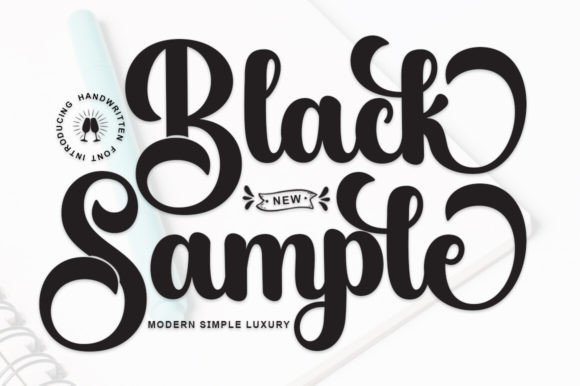
Introducing Black Sample Font: Elevate Your Designs with Elegance and Charm
Are you looking for a font that exudes sophistication and style? Look no further than Black Sample Font, a stunning script font that is sure to elevate your design projects to new heights. With its classic calligraphy-inspired aesthetic, Black Sample Font feels equally charming and elegant, making it the perfect choice for designers and crafters seeking to add a touch of luxury to their work.
A Stylish Homage to Classic Calligraphy
Black Sample Font is a beautiful script font that pays homage to the art of classic calligraphy. Its intricate lettering and flowing lines evoke a sense of nostalgia and sophistication, making it perfect for designs that require a touch of elegance. Whether you’re working on a branding project, creating wedding designs, or crafting invitations, Black Sample Font is sure to impress.
One of the best things about Black Sample Font is its versatility. This stunning script font can be used for a wide range of design projects, including:
- Branding: Create a lasting impression with Black Sample Font, perfect for logos, business cards, and letterheads.
- Wedding Designs: Add a touch of romance and elegance to your wedding designs, including invitations, programs, and place cards.
- Invitations: Make a statement with Black Sample Font, ideal for formal events, parties, and celebrations.
- Signs: Create eye-catching signs that demand attention, perfect for businesses, events, and exhibitions.
- Logos: Give your brand a touch of sophistication with Black Sample Font, suitable for logos, icons, and graphics.
- Labels: Add a touch of elegance to your product labels, packaging, and marketing materials.
Why Choose Black Sample Font?
So why choose Black Sample Font over other script fonts? Here are just a few reasons why this font stands out:
- Elegant and Charming: Black Sample Font exudes sophistication and style, making it perfect for designs that require a touch of luxury.
- Highly Versatile: This script font can be used for a wide range of design projects, from branding and wedding designs to invitations and signs.
- Easy to Read: Despite its intricate lettering, Black Sample Font is surprisingly easy to read, making it perfect for body text and headlines.
- Scalable: Black Sample Font looks great at any size, from small labels to large billboards.
Tips for Using Black Sample Font
To get the most out of Black Sample Font, here are a few tips to keep in mind:
- Use it Sparingly: While Black Sample Font is stunning, it can be overwhelming if used excessively. Use it sparingly to create a lasting impression.
- Pair it with Simple Fonts: Pair Black Sample Font with simple, clean fonts to create a striking contrast.
- Experiment with Colors: Black Sample Font looks great in a range of colors, from metallic gold and silver to rich jewel tones.